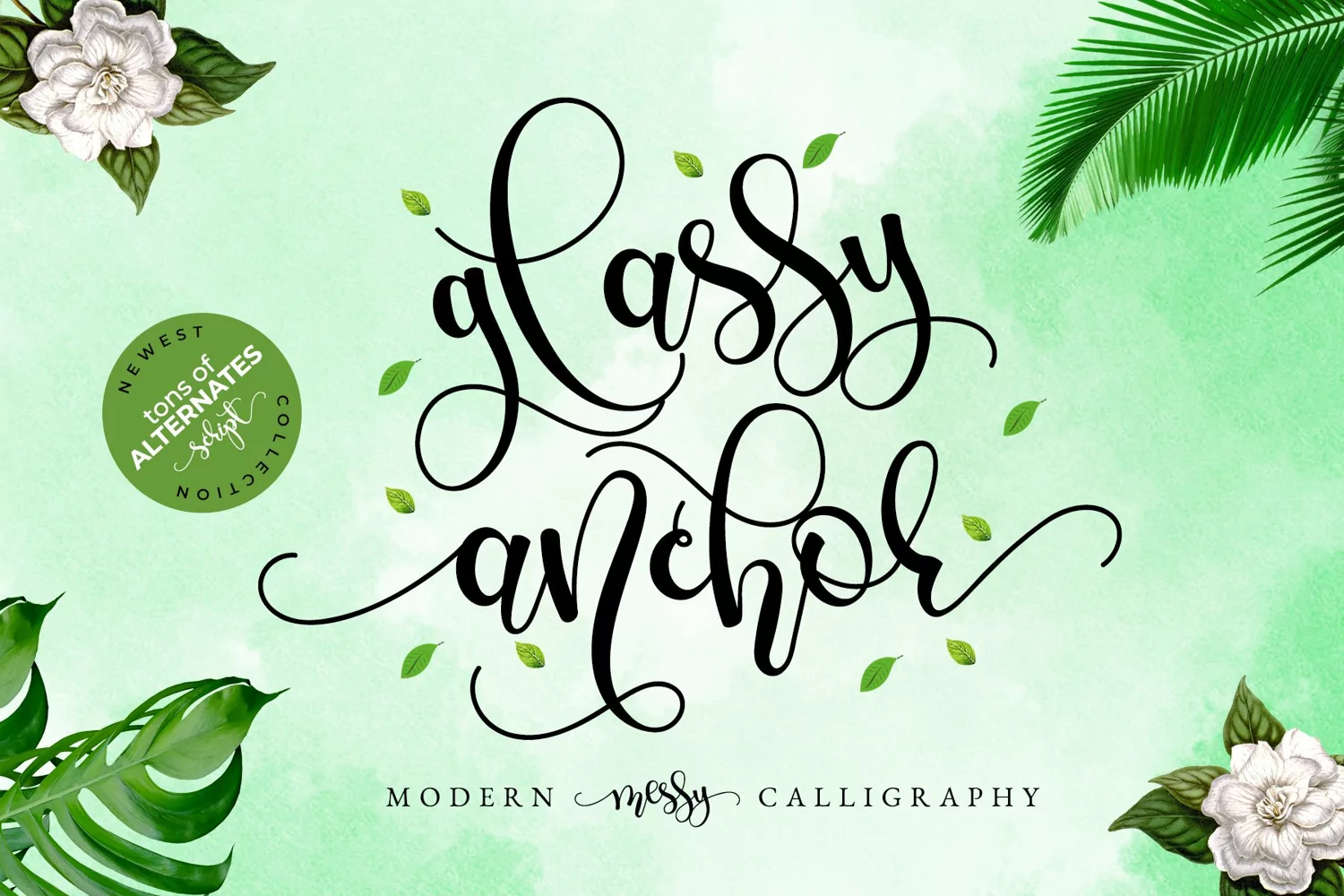
Glassy Anchor is bouncy and messy cute calligraphy script. This font still has elegance touch to make your design looks fabulous.
Glassy Anchor is PUA-Encoded, with tons of extra glyphs to give many options in designing. This messy calligraphy script is perfect font for any elegant projects, such as wedding invitation, branding, logo, lettering, crafting, and many more.